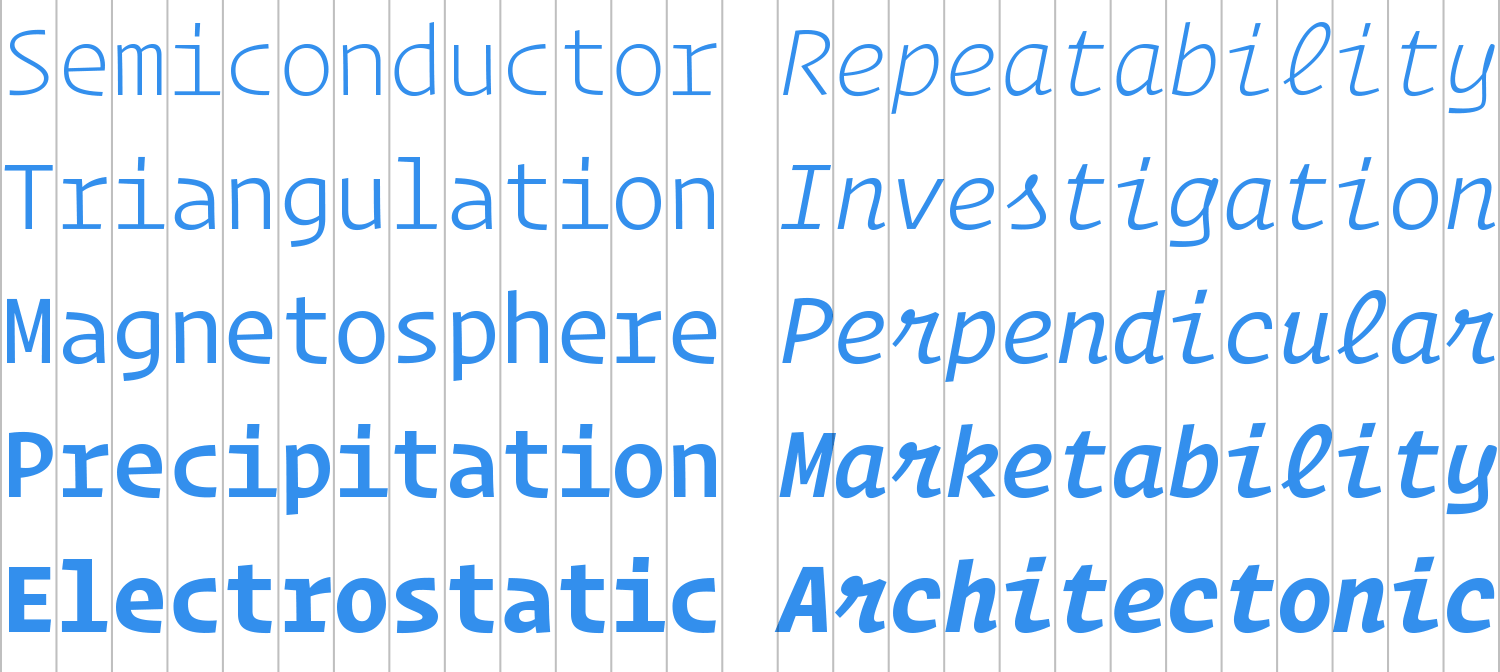
About two years ago, H&Co Senior Designer Andy Clymer proposed that we design a monospace typeface. Monospace (or “fixed-width”) typefaces have a unique place in the culture: their most famous ancestor is the typewriter, and they remain the style that designers reach for when they want to remind readers about the author behind the words. Typewriter faces have become part of the aesthetic of journalism, fundraising, law, academia, and politics; a dressier alternative to handwriting, but still less formal than something set in type, they’re an invaluable tool for designers.
I acutely felt the need for such a typeface, and immediately thought of places I’d want to use it on Discover.typography. And while I liked the idea of creating a new typeface that would have this kind of voice — minus the nostalgic clackety-clack look of an actual typewriter face — I wondered if we could achieve these results without the many compromises required of a fixed-width design. Fixed-width faces force every character into a box of the same size, creating charmingly long serifs on the capital I, but tragic, procrustean disfigurements of wider letters like M and W. So I suggested that we relax the system, to create a font that feels monospaced, but behaves more professionally.
Andy made an equally compelling counterproposal, reminding me that the command-line editor — these days, home to so many people who design things — could really be improved by a fully fixed-width typeface. What if, in addition to shedding the unwanted baggage of the typewriter, we also looked to the programming environment as a place where type could make a difference? Like many screen fonts before it, Operator could pay extra attention to the brackets and braces and punctuation marks more critical in code than in text. But if Operator took the unusual step of looking not only to serifs and sans serifs, but to script typefaces for inspiration, it could do a lot more. It could render the easily-confused I, l, and 1 far less ambiguous. It could help “color” syntax in a way that transcends the actual use of color, ensuring that different parts of a program are easier to identify. Andy hoped this might be useful when a technical pdf found its way to a black-and-white laser printer. It was an especially meaningful gesture to me, as someone who, like three hundred million others, is red-green colorblind.
So with designers, developers, and most of all readers in mind, we decided to design it both ways. Operator Mono® is our new family of fixed-width typefaces, with a broader range of weights than a typical typewriter face, and an italic that positively shines in code. Its more editorial companion is the natural-width Operator® family, which offers the voice of typewriting but none of the compromises. Operator extends to nine weights, from Thin to Ultra, and includes both roman and italic small caps throughout. Both families are supported by companion ScreenSmart fonts, specially designed and engineered for use in the browser at text sizes.
In developing Operator, we found ourselves talking about JavaScript and css, looking for vinyl label embossers on eBay, renting a cantankerous old machine from perhaps the last typewriter repair shop in New York, and unearthing a flea market find that amazingly dates to 1893. Above is the four-minute film I made, to record a little of what went into Operator, and introduce the team at H&Co behind it. —JH